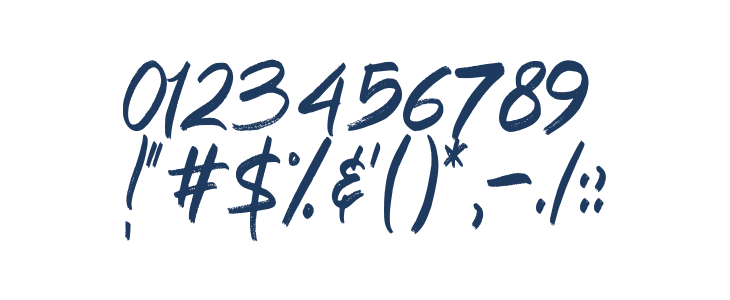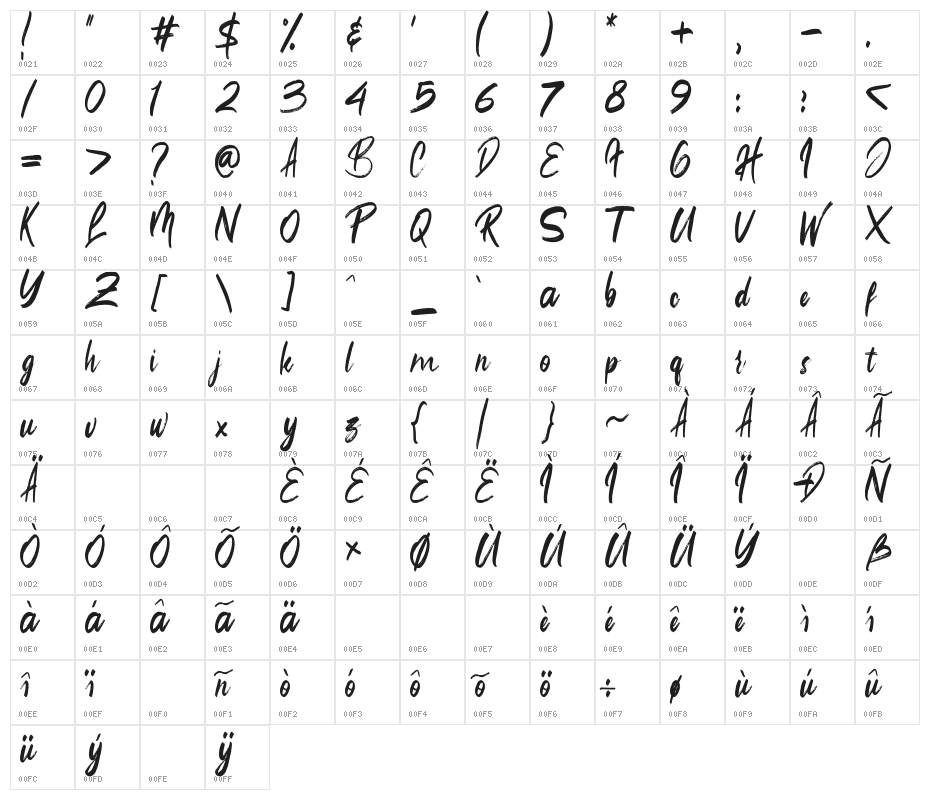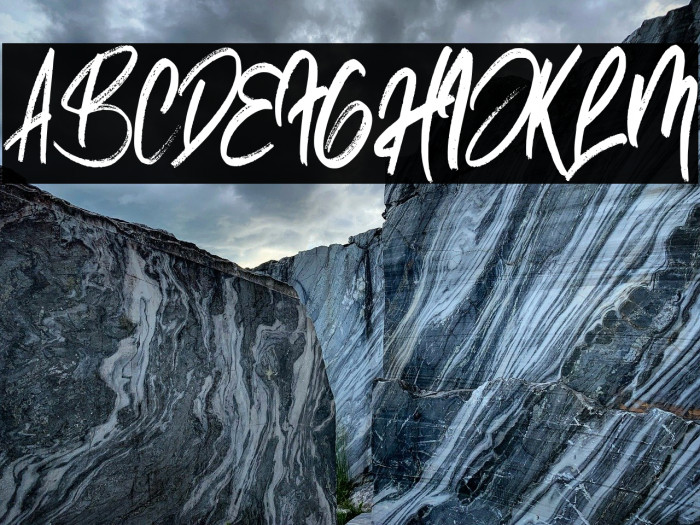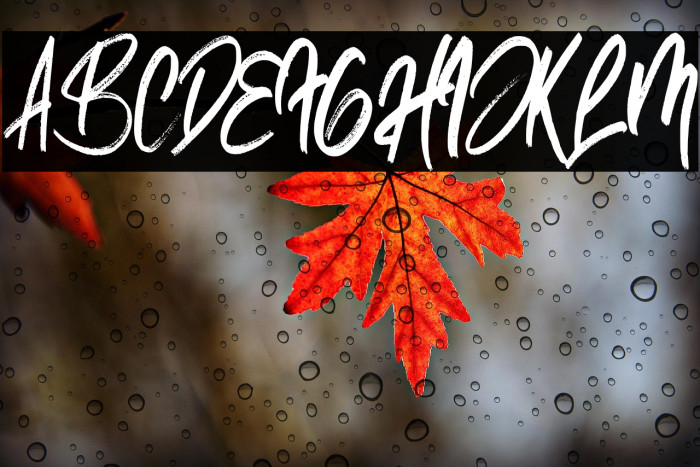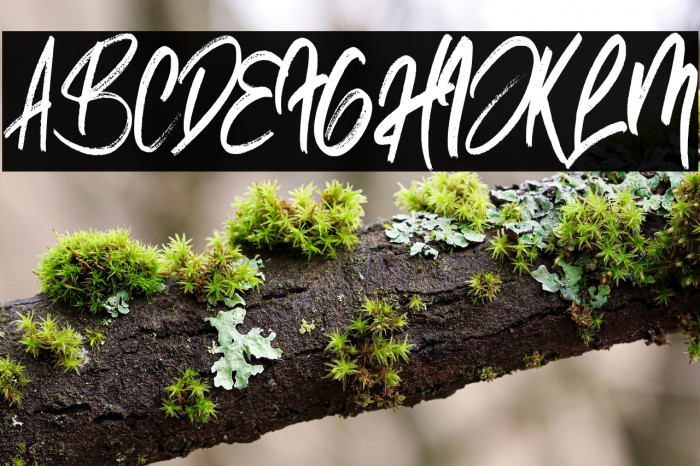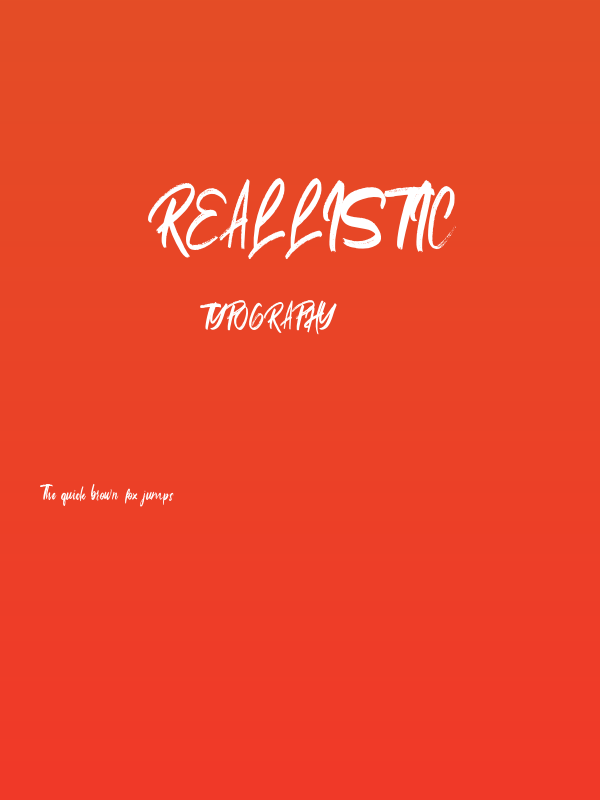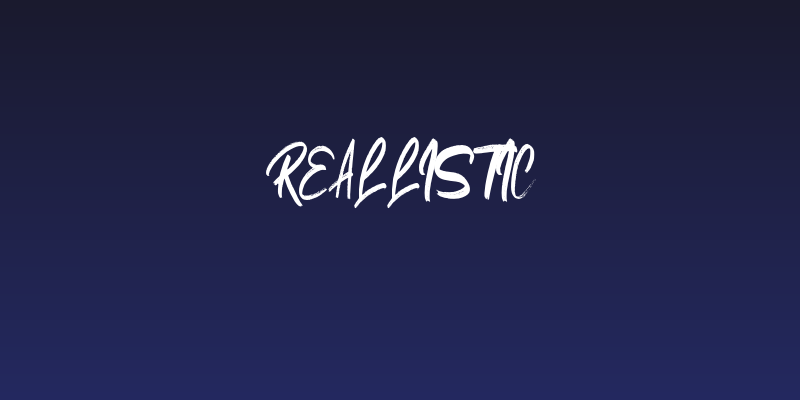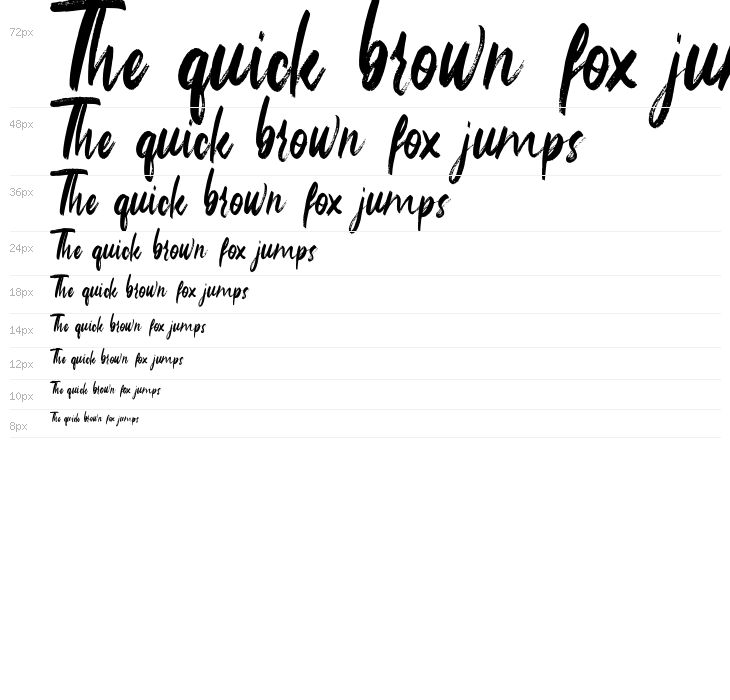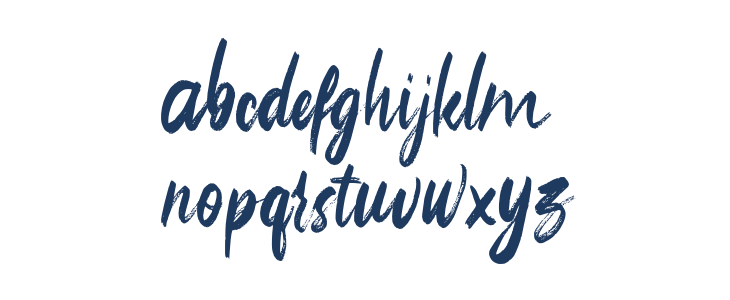
ReallistiC Font
ReallistiC Description
This font exudes a dynamic and energetic style, characterized by its bold, brush-like strokes that convey a sense of movement and fluidity. The uppercase and lowercase letters are crafted with a natural, handwritten quality, giving it an authentic and personal touch. The numbers and special characters maintain this lively aesthetic, ensuring consistency across all elements. The strokes vary in thickness, adding a sense of depth and texture, while the overall design remains legible and impactful. This font is ideal for projects that require a personal, artistic flair, such as branding, posters, and creative designs.
| Use Case | Logos, Headlines, Artistic designs |
| Proposed Projects | Ideal for branding, posters, artistic designs, and creative projects requiring a personal touch. |